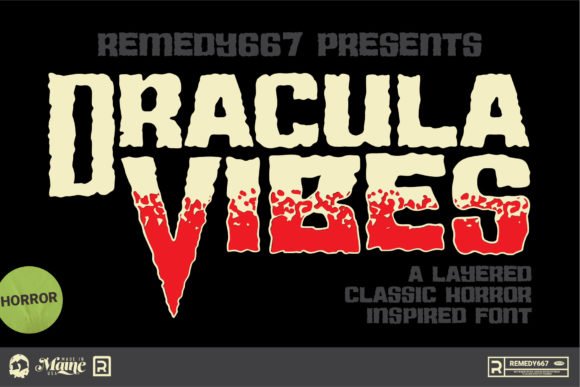
Dracula Vibes: The Gothic Font That Casts a Spell
If you're searching for a font that exudes mystery, darkness, and an air of the supernatural, Dracula Vibes might just be the perfect fit. This layered gothic font is designed to capture the essence of horror, vampire lore, and dark fantasy, making it ideal for a wide range of creative and commercial projects. Whether you're a designer, a writer, or a business owner looking to make a bold statement, Dracula Vibes offers a unique visual identity that stands out from the crowd.
What Makes Dracula Vibes Unique?
At its core, Dracula Vibes is more than just a fontβit's a style that evokes a sense of foreboding and elegance. Its design features intricate details, sharp edges, and a dramatic weight that gives it a striking presence on the page. The font's layered appearance adds depth, creating a visual effect that mimics the complexity of a gothic atmosphere.
Unlike many standard fonts, Dracula Vibes is not just about aesthetics; it's also about functionality. It maintains legibility even at smaller sizes, which is crucial when designing for readability in various contexts. Whether you're using it for a book cover, a logo, or a website header, Dracula Vibes delivers both form and function.
Key Features of Dracula Vibes
- Layered Design: The fontβs layered structure gives it a three-dimensional look, enhancing its gothic appeal.
- Gothic Aesthetic: Inspired by classic horror and vampire themes, it brings a dark, mysterious vibe to any project.
- High Legibility: Despite its elaborate style, Dracula Vibes remains easy to read, especially in larger sizes.
- Versatile Usage: Suitable for print, digital, and web-based applications.
Where Can You Use Dracula Vibes?
The versatility of Dracula Vibes makes it a valuable tool for various industries and creative fields. Here are some common use cases:
- Horror-Themed Projects: From movie posters to book covers, Dracula Vibes adds an instant sense of dread and intrigue.
- Branding and Logos: Businesses in the entertainment, fashion, or niche markets can use this font to create a memorable and distinctive brand identity.
- Web Design: As a web font, Dracula Vibes can be used for headers, banners, and other visual elements to enhance the overall aesthetic of a site.
- Print Media: Perfect for magazines, brochures, and promotional materials that require a dramatic and eye-catching design.
For creators and professionals, the ability to convey a specific mood or theme through typography is invaluable. Dracula Vibes allows you to do just that, helping you communicate your message with a touch of darkness and sophistication.
Who Benefits from Dracula Vibes?
Dracula Vibes is particularly beneficial for individuals and businesses that want to stand out in a competitive market. Here are some groups who may find it useful:
- Graphic Designers: Those working on horror-themed projects can use Dracula Vibes to elevate their designs and create a cohesive visual style.
- Writers and Authors: For those writing in the horror or fantasy genres, this font can be used in book titles, chapter headings, or promotional materials.
- Business Owners: Entrepreneurs in niche markets, such as boutique shops or event planners, can use Dracula Vibes to craft a unique brand image.
- Online Creators: Bloggers, YouTubers, and social media influencers can incorporate this font into their content to add a dramatic flair.
By using Dracula Vibes, these individuals can tap into the emotional and visual power of gothic typography, creating a deeper connection with their audience.
Strengths and Considerations
While Dracula Vibes has many strengths, it's important to consider its limitations and practical expectations. One of its main advantages is its ability to evoke strong emotions and create a distinct visual identity. However, because of its layered design, it may not be suitable for all types of content.
For example, in long blocks of text, Dracula Vibes may become difficult to read due to its intricate details. Therefore, it's best used in short, impactful phrases rather than extended paragraphs. Additionally, while it works well in print and digital formats, users should ensure that their platform supports custom fonts to maintain the intended visual effect.
Real-World Applications of Dracula Vibes
To better understand how Dracula Vibes can be applied, let's look at a few real-world scenarios:
- Movie Poster Design: A horror film's poster could feature the title in Dracula Vibes, immediately setting the tone and attracting the target audience.
- Book Cover Creation: An author writing a gothic novel might use Dracula Vibes for the title to create a visually compelling cover that reflects the story's atmosphere.
Ultimately, Dracula Vibes is more than just a fontβit's a style that captures the spirit of gothic horror and offers a unique way to express creativity. Whether you're a designer, a writer, or a business owner, this font provides an opportunity to make a lasting impression and stand out from the rest. With its combination of elegance, drama, and functionality, Dracula Vibes is a must-have for anyone looking to infuse their work with a touch of the dark and the mysterious.